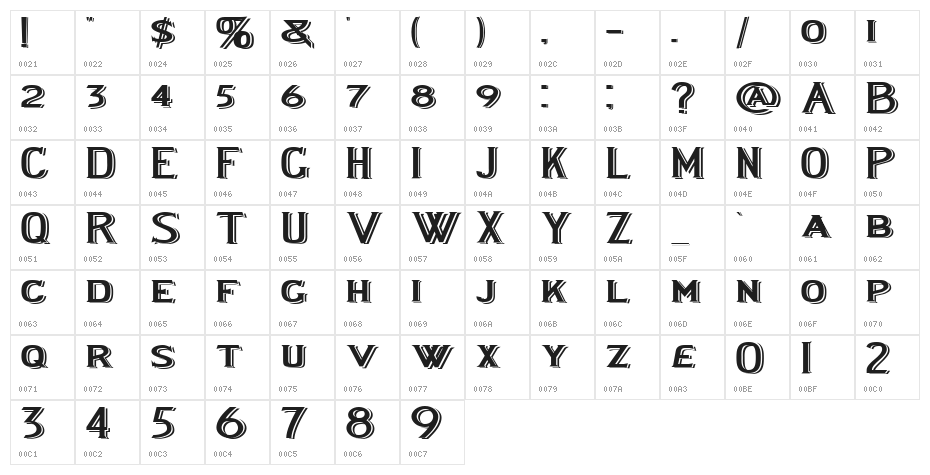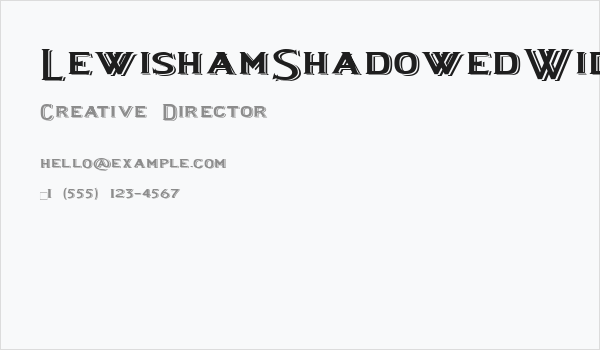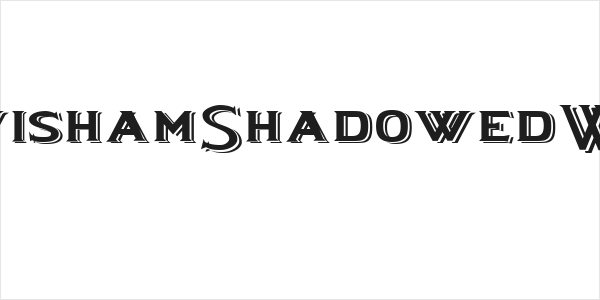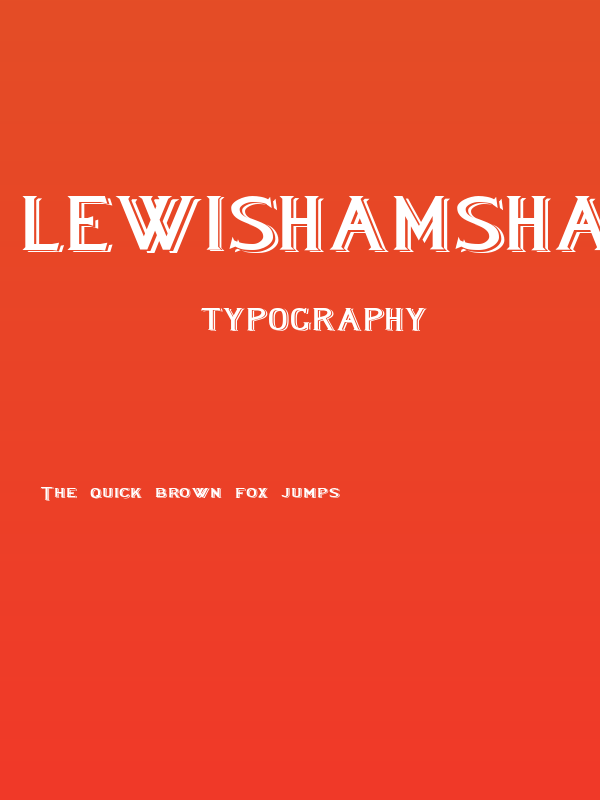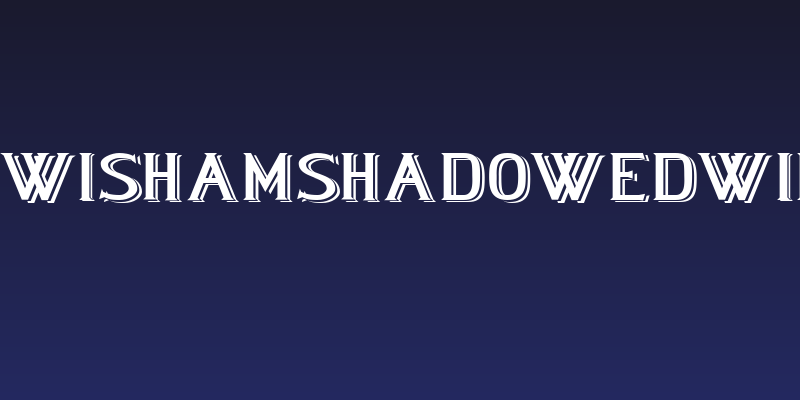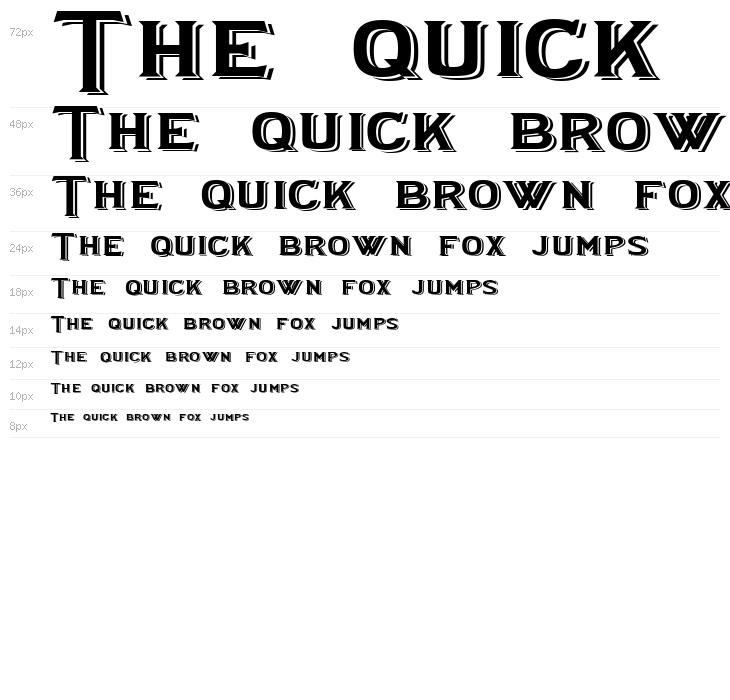
LewishamShadowedWide Font
LewishamShadowedWide Description
This font features a bold and wide design with a shadow effect that gives it a three-dimensional appearance. The characters are evenly spaced, creating a balanced and structured look. The uppercase letters are prominent and commanding, while the lowercase letters maintain a consistent style that complements the overall design. The numbers and special characters are crafted with the same attention to detail, ensuring uniformity across all elements. This font's shadowed effect adds depth, making it ideal for eye-catching displays.
| Proposed Projects | Ideal for posters, headlines, logos, and any design requiring a striking and impactful font. |